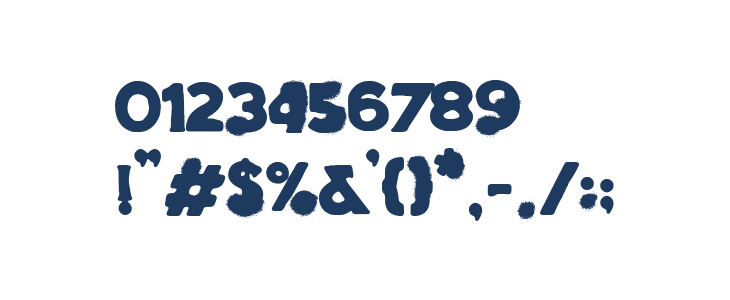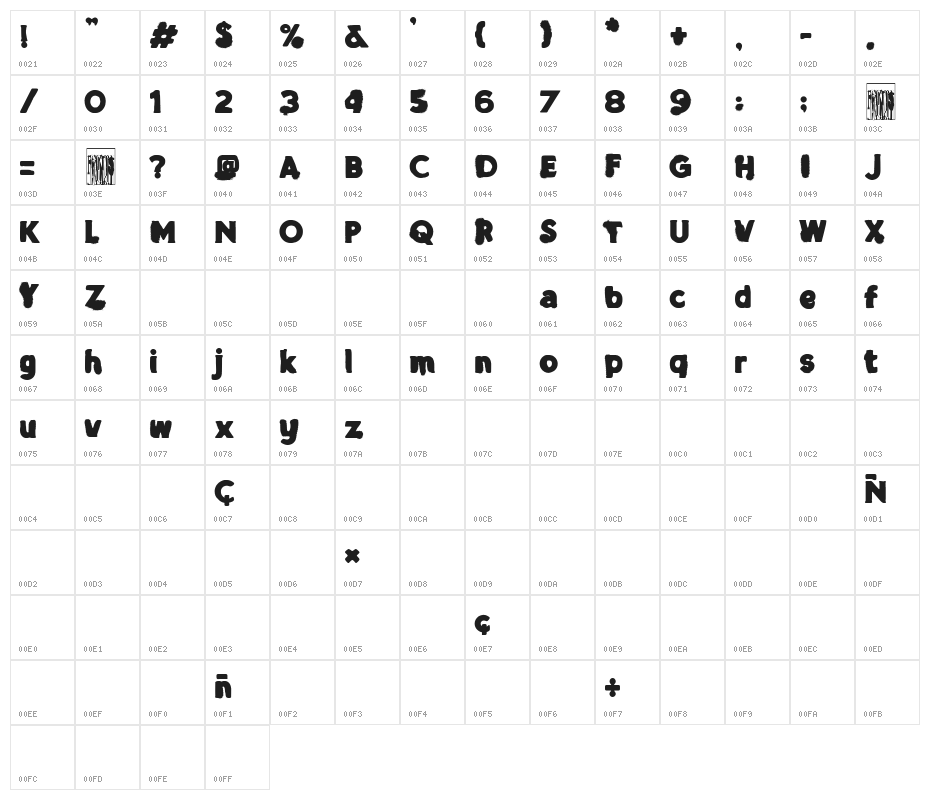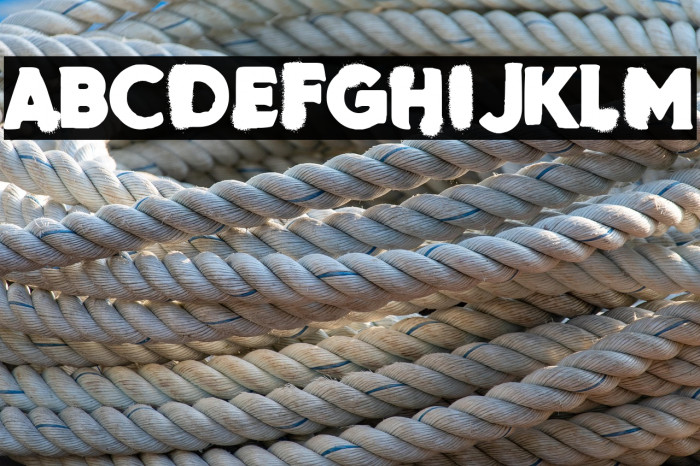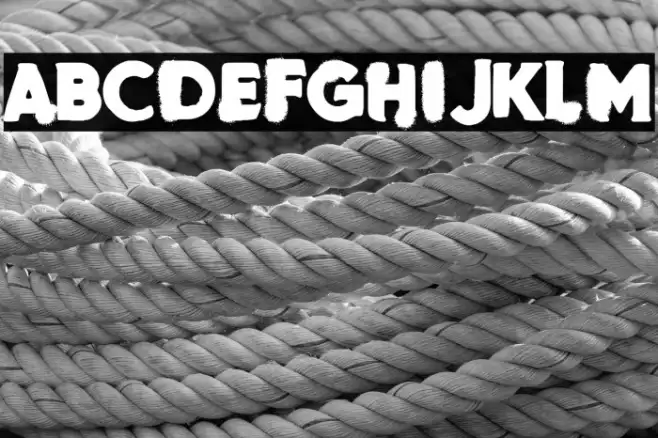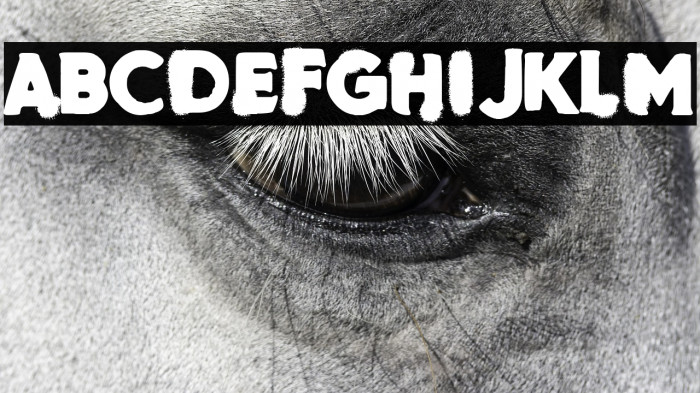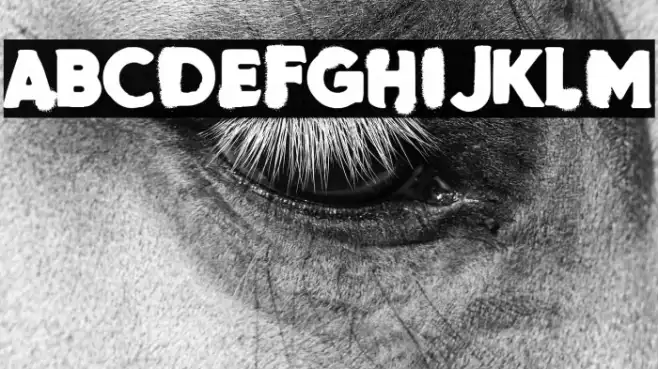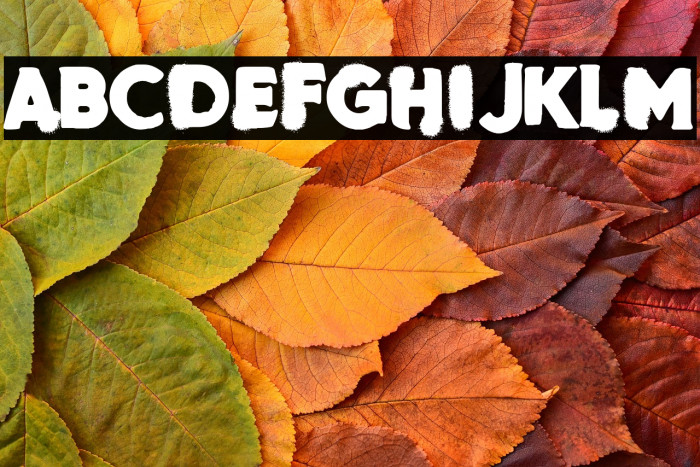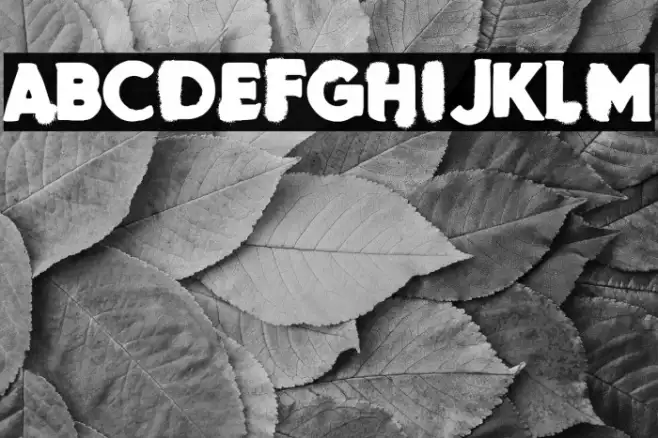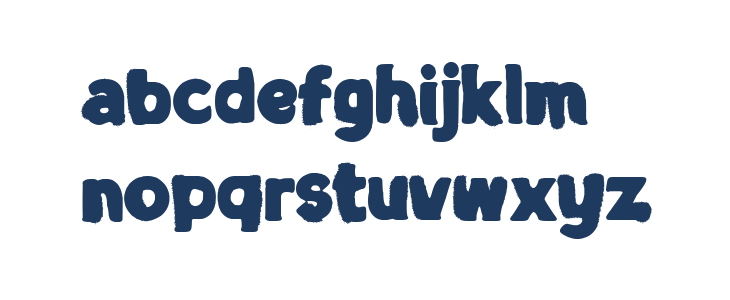
National Spain Font
National Spain Description
This font features a bold and playful style with a distinct, hand-painted appearance. The characters are thick and rounded, giving them a friendly and approachable look. The edges are slightly irregular, adding to the organic and artistic feel. The font maintains a consistent weight throughout, with minimal contrast between strokes. It has a lively and dynamic presence, making it suitable for creative and informal applications. The spacing between characters is tight, enhancing its compact and cohesive appearance.
| Proposed Projects | Ideal for children's books, playful branding, posters, and creative packaging. |